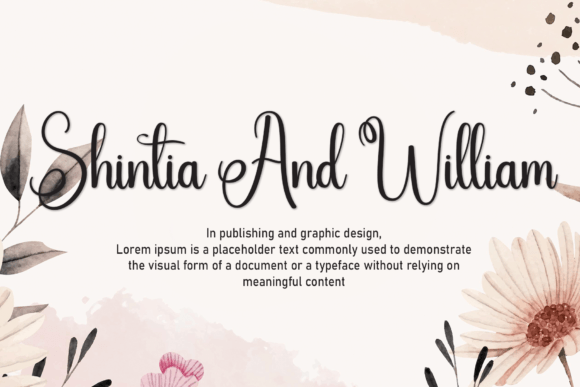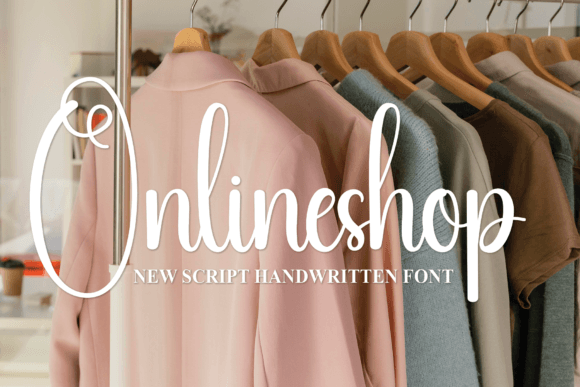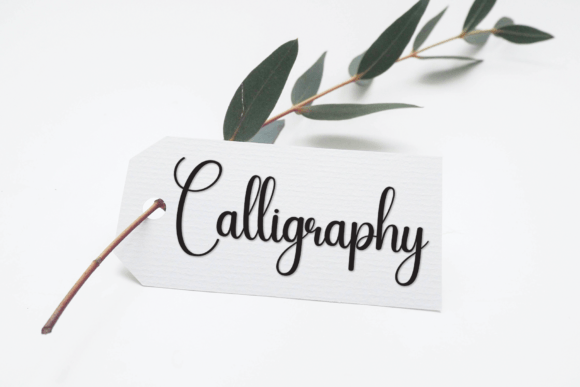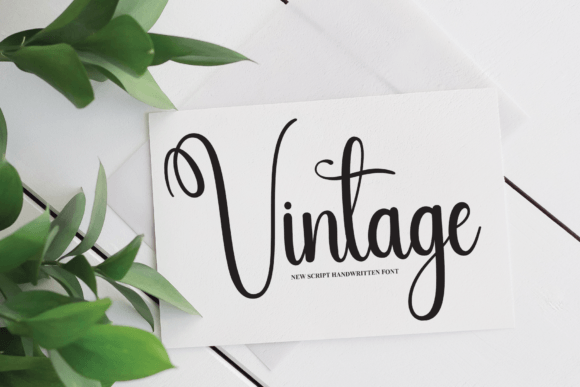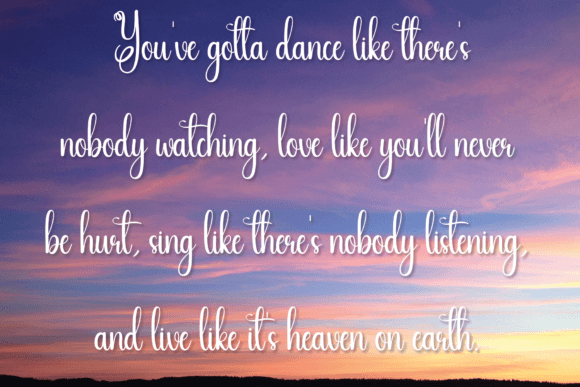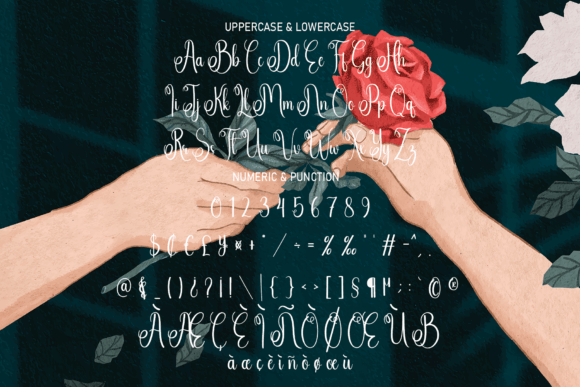
Introducing Beloved Font: The Elegant Choice for Your Design Projects
Are you on the hunt for a font that exudes elegance and sophistication? Look no further than Beloved Font, a stunning handwritten font that is sure to capture your heart. With its flowing lines and timeless style, Beloved Font is the perfect choice for designers and crafters looking to add a touch of class to their projects.
The Characteristics of Beloved Font
Beloved Font is described by its elegant touch, which sets it apart from other fonts on the market. Its incredibly distinct and timeless style makes it perfect for a wide range of design projects, from wedding invitations and branding materials to social media graphics and more. The font’s flowing lines and curves give it a sense of movement and fluidity, making it a joy to use and work with.
What Makes Beloved Font So Special?
So, what makes Beloved Font so special? For starters, its unique and elegant style sets it apart from other fonts on the market. The font’s creator has carefully crafted each letter and character to ensure that it is both beautiful and legible, making it perfect for use in a variety of design projects. Additionally, Beloved Font is incredibly versatile, and can be used for both personal and commercial projects.
The Benefits of Using Beloved Font
There are many benefits to using Beloved Font in your design projects. For one, it can help to elevate your designs and give them a professional, polished look. The font’s elegant style is also sure to evoke a sense of sophistication and luxury, making it perfect for high-end branding and marketing materials. Additionally, Beloved Font is easy to read and understand, making it a great choice for body text and other written content.
How to Use Beloved Font in Your Design Projects
Tips and Tricks for Getting the Most Out of Beloved Font
To get the most out of Beloved Font, here are a few tips and tricks to keep in mind. First, experiment with different font sizes and styles to find the perfect look for your design project. You can also combine Beloved Font with other fonts and design elements to create a unique and eye-catching design. Additionally, be sure to use Beloved Font in a way that is consistent with your brand’s overall aesthetic and messaging.
In conclusion, Beloved Font is a beautiful and elegant handwritten font that is perfect for designers and crafters looking to add a touch of sophistication to their projects. With its flowing lines, timeless style, and incredible versatility, Beloved Font is sure to become a favorite in your design toolkit. So why wait? Download Beloved Font today and start creating spectacular designs that will leave a lasting impression!
Key Features of Beloved Font
• Elegant and sophisticated handwritten font
• Flowing lines and timeless style
• Incredibly versatile and easy to use
• Perfect for a wide range of design projects
What You Can Create with Beloved Font
• Branding and marketing materials
• Email newsletters and campaigns
• Print materials like brochures and business cards